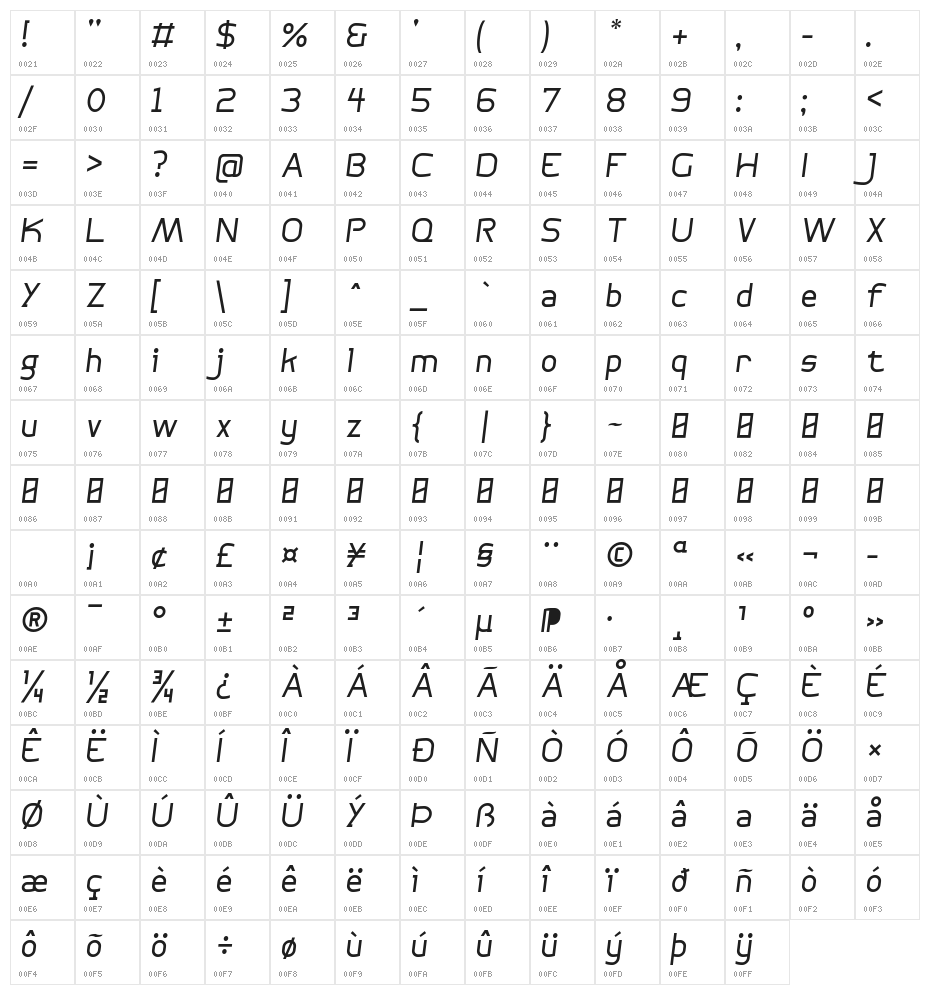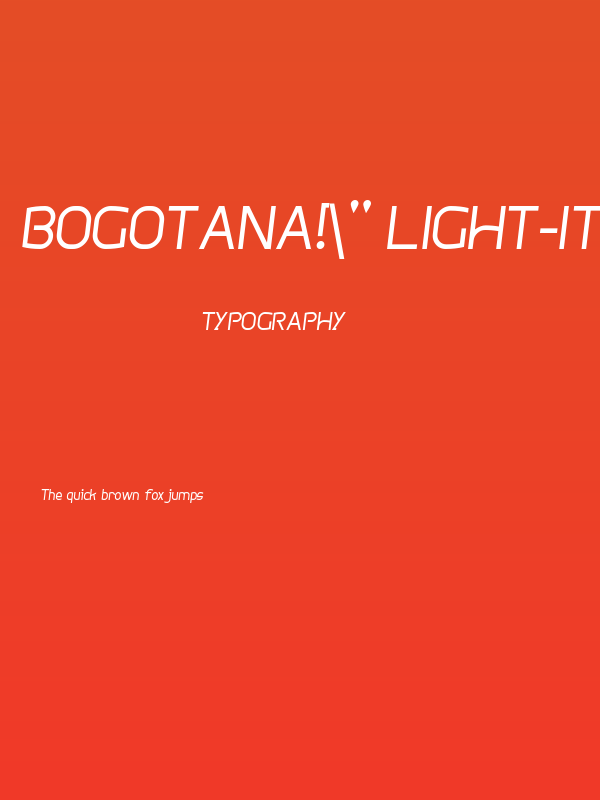
Bogotana!" Light-Italic Font
Bogotana!" Light-Italic Description
This font features a sleek and modern design with a light weight and italic style. The characters are slightly slanted, giving it a dynamic and fluid appearance. The strokes are consistent in thickness, providing a uniform look across all characters. The font maintains a clean and professional aesthetic, making it suitable for various design applications. Its rounded edges and smooth curves contribute to its approachable and friendly vibe, while the overall structure remains precise and well-defined.